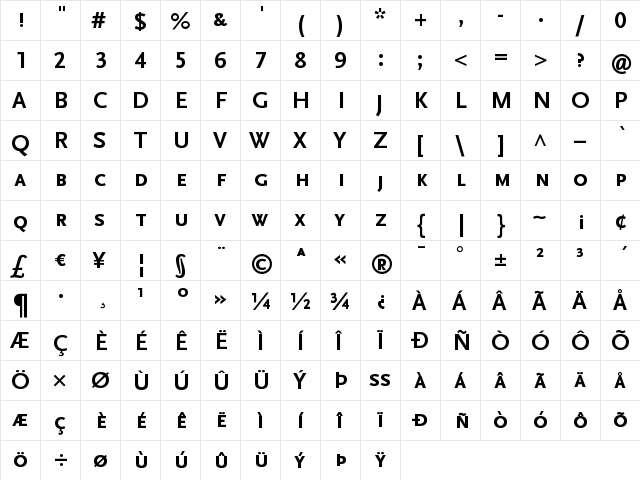
ScalaSans Caps Bold Font Preview
ScalaSans Caps Bold
Design Context for ScalaSans Caps Typeface
ScalaSans Caps takes a measured approach to typography — its balanced proportions and neutral character make it a reliable workhorse for both digital and print work. Its bold stroke weight gives it real presence on the page.